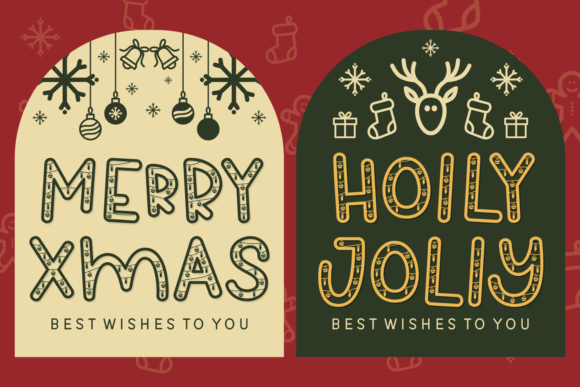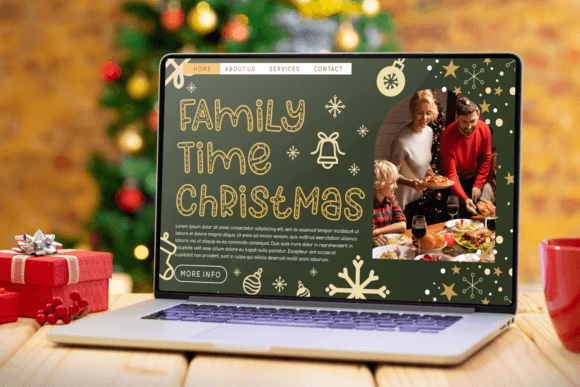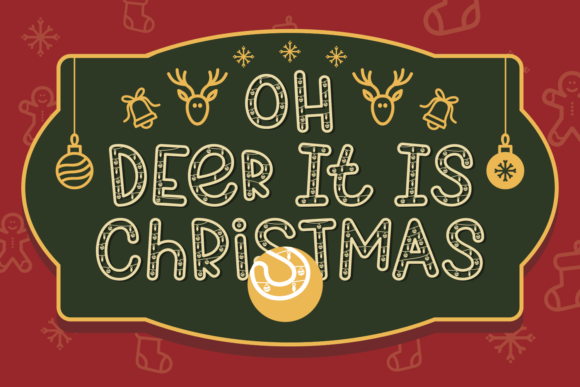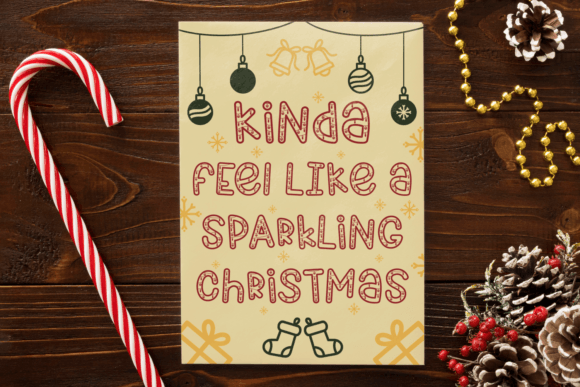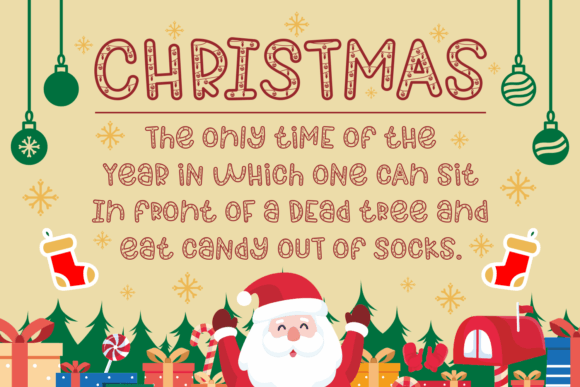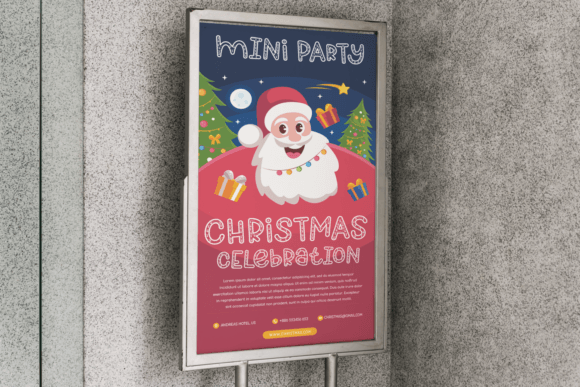
Introducing Christmas Gleam Font: Add a Touch of Holiday Magic to Your Designs
Are you looking for a font that captures the essence of the winter holiday season? Look no further than Christmas Gleam Font, a stylish and beautiful decorative typeface that’s perfect for adding a touch of festive flair to your designs. With its cute little ornament details and PUA encoding, this font is sure to become a favorite among designers and crafters alike.
What Makes Christmas Gleam Font So Special?
Christmas Gleam Font is a unique and eye-catching typeface that’s specifically designed to evoke the spirit of Christmas. Its decorative details, including cute little ornaments, give it a playful and festive feel that’s sure to add a touch of holiday magic to your designs. Whether you’re creating Christmas cards, holiday-themed posters, or winter wonderland-inspired social media graphics, this font is the perfect choice.
Key Features of Christmas Gleam Font
- PUA Encoding: Christmas Gleam Font is PUA encoded, which means you can easily access all the extra glyphs and special characters. This makes it easy to customize your designs and add a personal touch.
- Cute Little Ornament Details: The font features adorable little ornament details that give it a playful and festive feel. These details can be used to add a touch of whimsy to your designs and make them stand out.
- Stylish and Beautiful: Christmas Gleam Font is a stylish and beautiful typeface that’s perfect for creating eye-catching designs. Its elegant lines and curves make it easy to read and visually appealing.
- Perfect for Winter Holidays Designs: This font is specifically designed for winter holidays designs, making it the perfect choice for Christmas cards, holiday-themed posters, and winter wonderland-inspired social media graphics.
Why Designers and Crafters Love Christmas Gleam Font
Designers and crafters love Christmas Gleam Font for its versatility and ease of use. The font is perfect for creating a wide range of designs, from simple Christmas cards to elaborate holiday-themed posters. Its PUA encoding makes it easy to access all the extra glyphs and special characters, allowing designers to customize their designs and add a personal touch.
How to Use Christmas Gleam Font in Your Designs
- Experiment with Different Sizes and Colors: Christmas Gleam Font looks great in a variety of sizes and colors. Experiment with different combinations to find the one that works best for your design.
- Use it for Headlines and Titles: The font is perfect for headlines and titles, where its decorative details can really shine.
- Add a Personal Touch: Use the font’s extra glyphs and special characters to add a personal touch to your designs. You can use them to create custom illustrations, icons, and graphics.
Christmas Gleam Font is a stylish and beautiful decorative typeface that’s perfect for adding a touch of holiday magic to your designs. With its cute little ornament details, PUA encoding, and ease of use, it’s sure to become a favorite among designers and crafters alike. Whether you’re creating Christmas cards, holiday-themed posters, or winter wonderland-inspired social media graphics, this font is the perfect choice. So why wait? Give Christmas Gleam Font a try today and see the difference it can make in your designs!